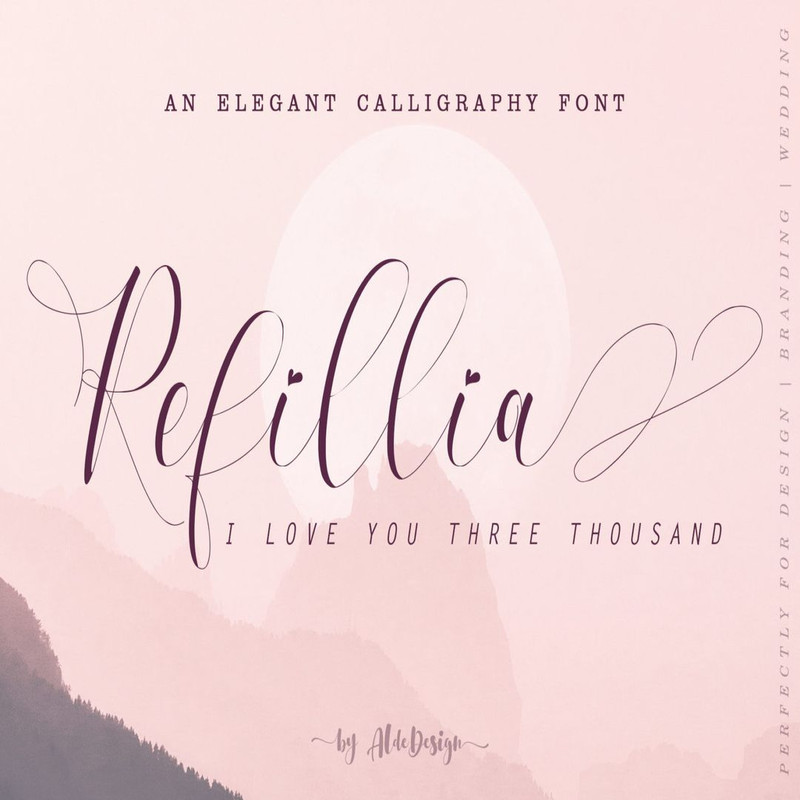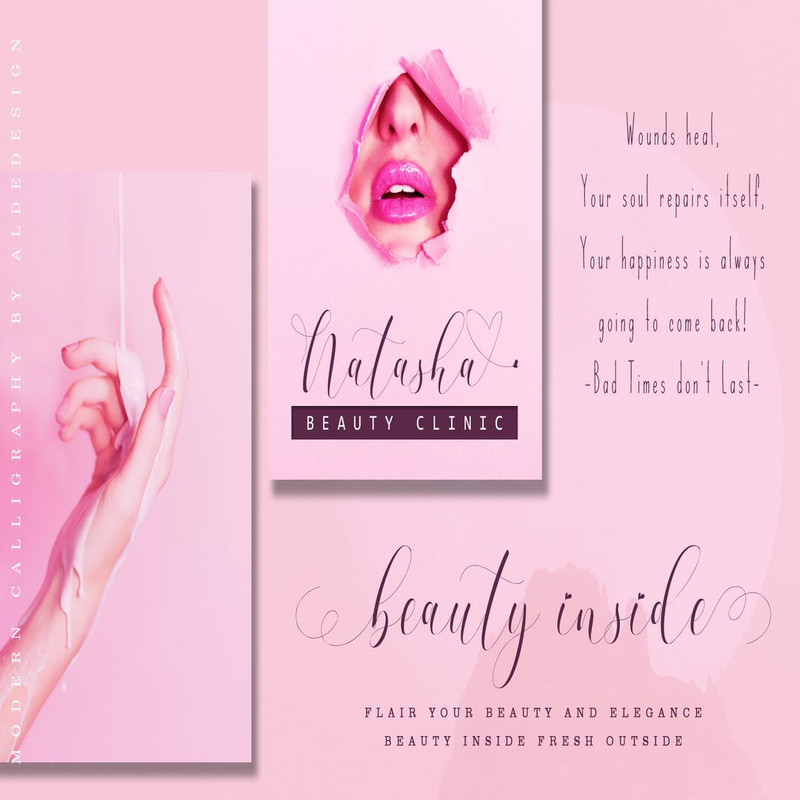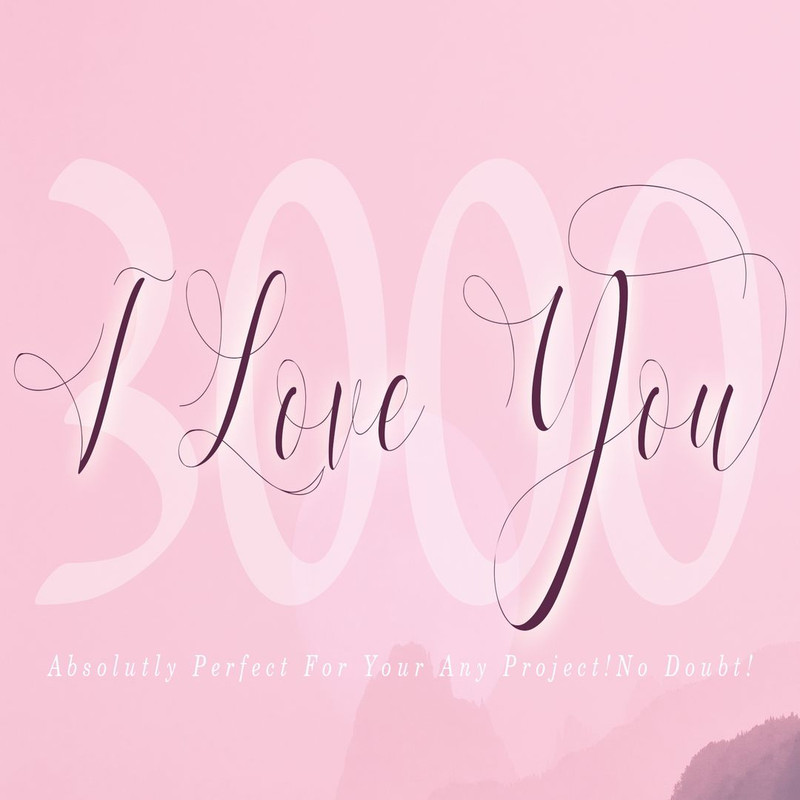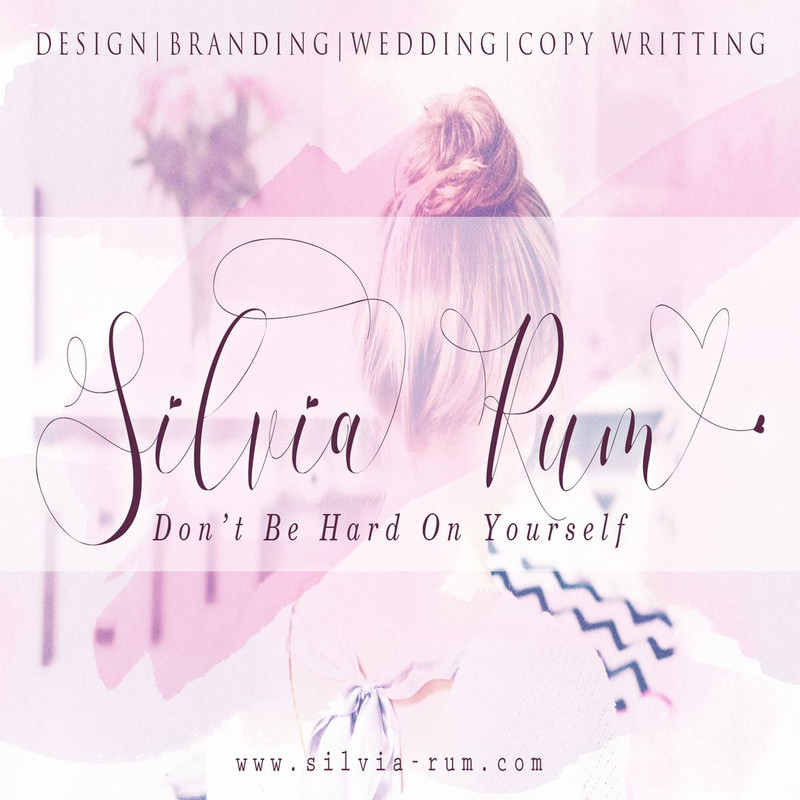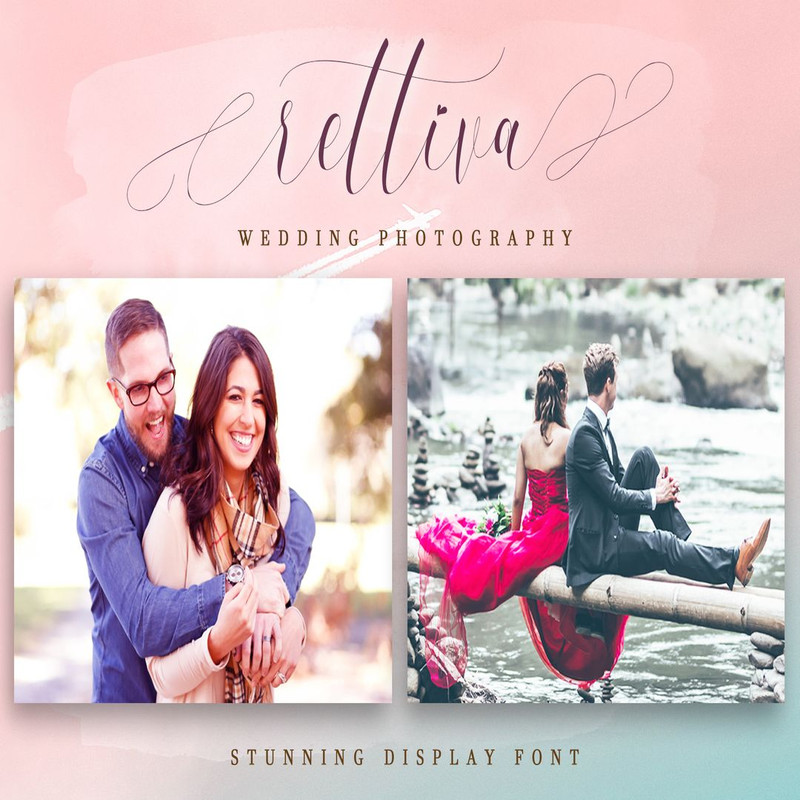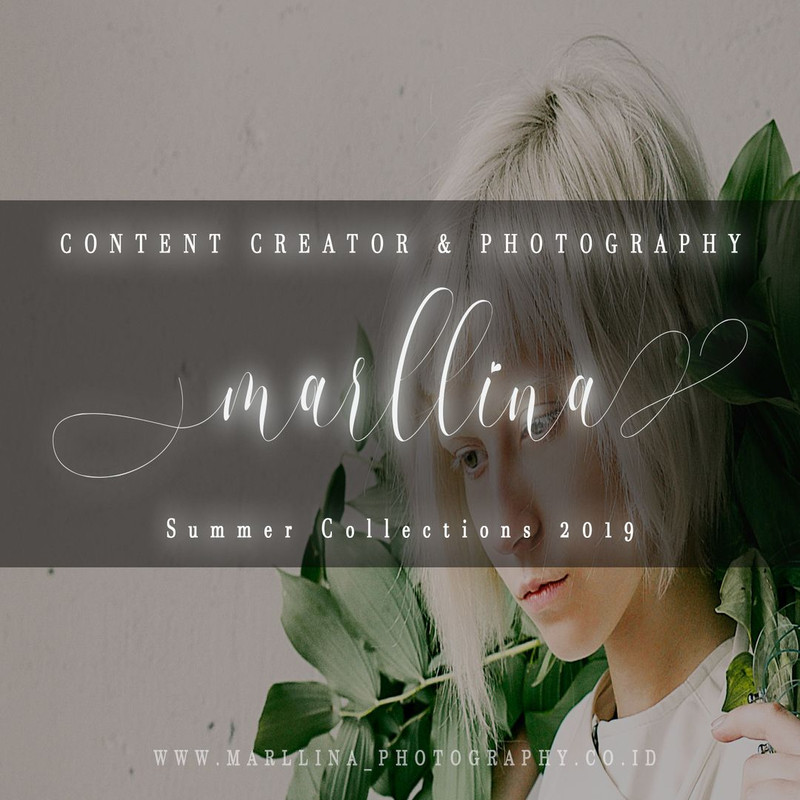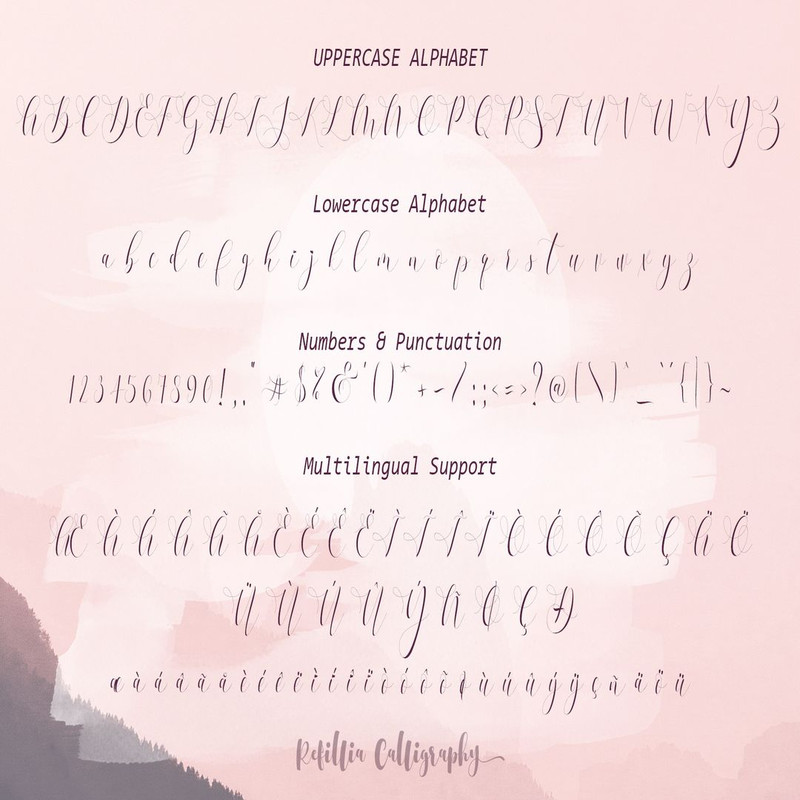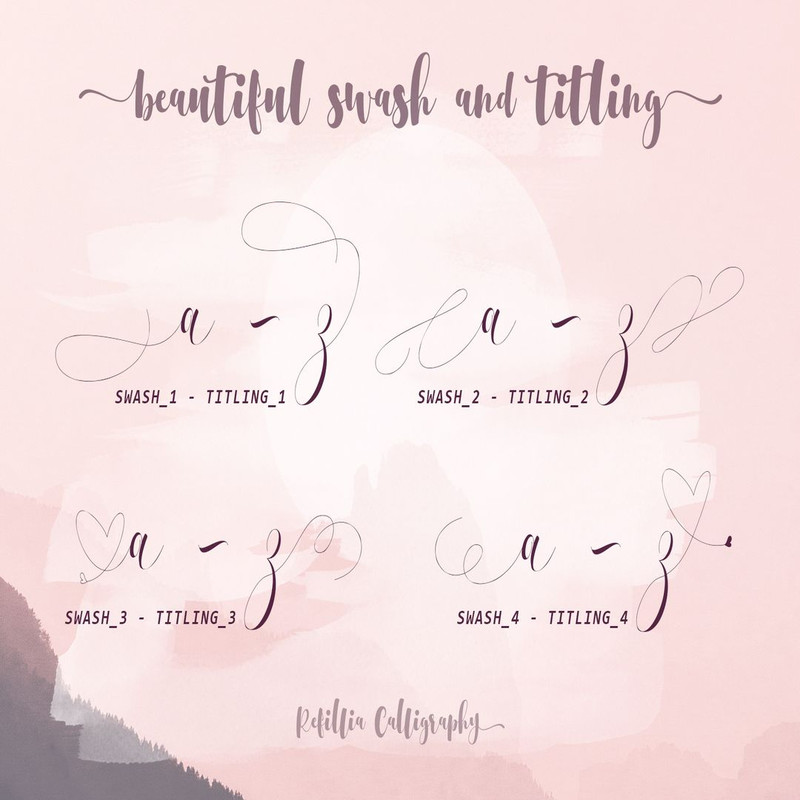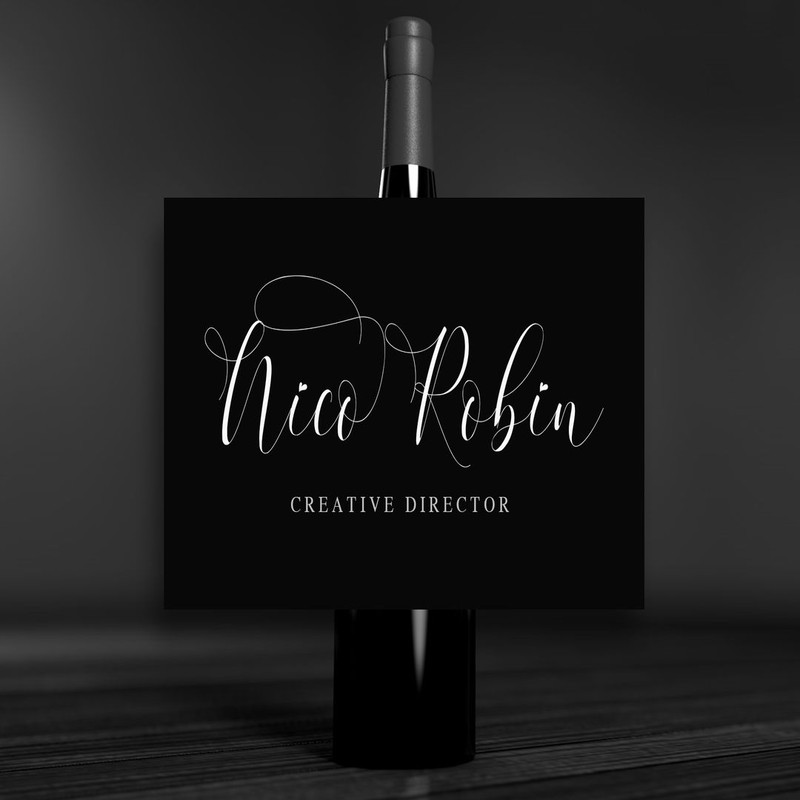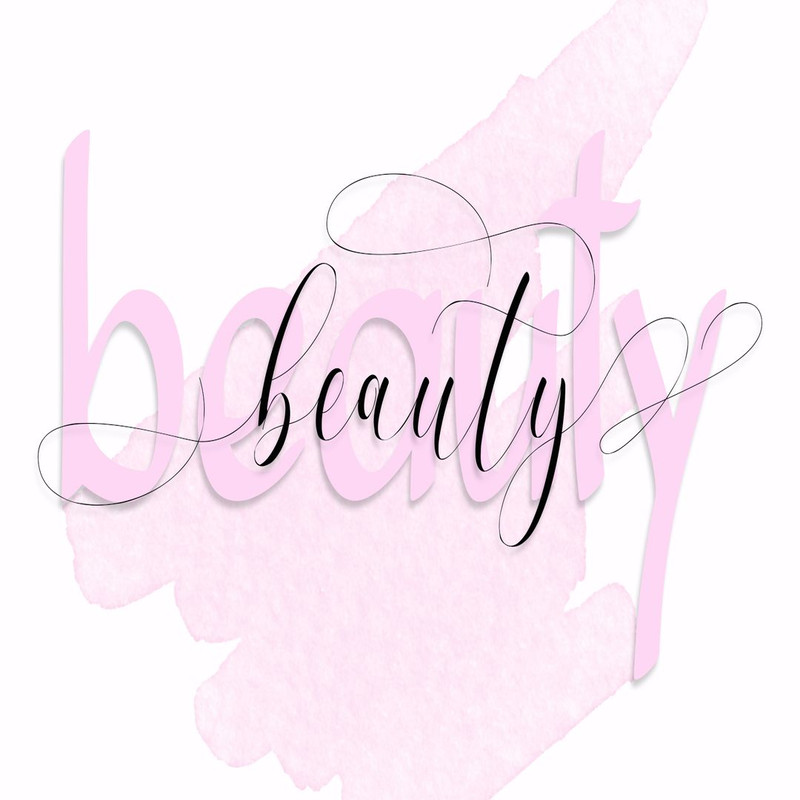
Refillia Calligraphy is a stylish calligraphy font that features a varying baseline, smooth line, modern and with a depth love. For those of you who are need a touch of love and modernity for your designs or branding, it can be used for various purposes such as headings, wedding, invitation, signature, logos, branding, t-shirt, letterhead, signage, lable, news, posters, badges etc.